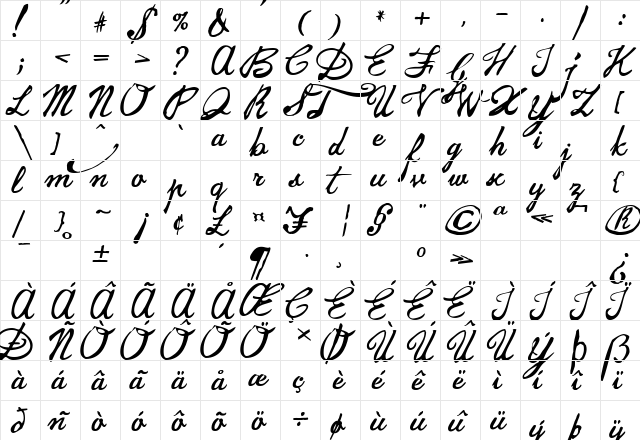
Jamscript Regular
| Foundry | Zetafonts |
| Designer | Debora Manetti |
Design Context for Jamscript Typeface
Jamscript flows with the natural rhythm of handwritten lettering, making it ideal for designs that call for warmth and personal expression.
Font Pairing: Combine Jamscript with a simple geometric sans for maximum contrast — the tension between flowing curves and clean structure is a classic typographic pairing.
Pro Tip: Use Jamscript for short runs of text — names, titles, or taglines. Extended body copy in script faces tires the eye quickly.